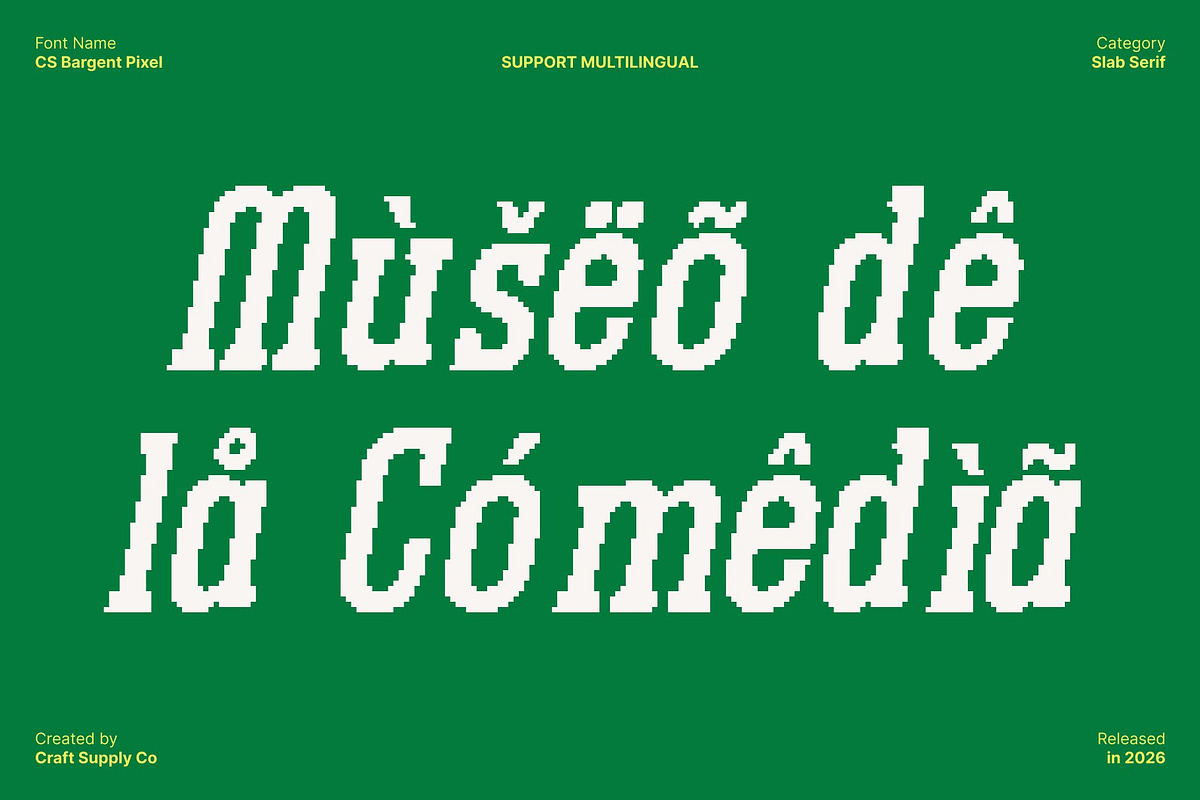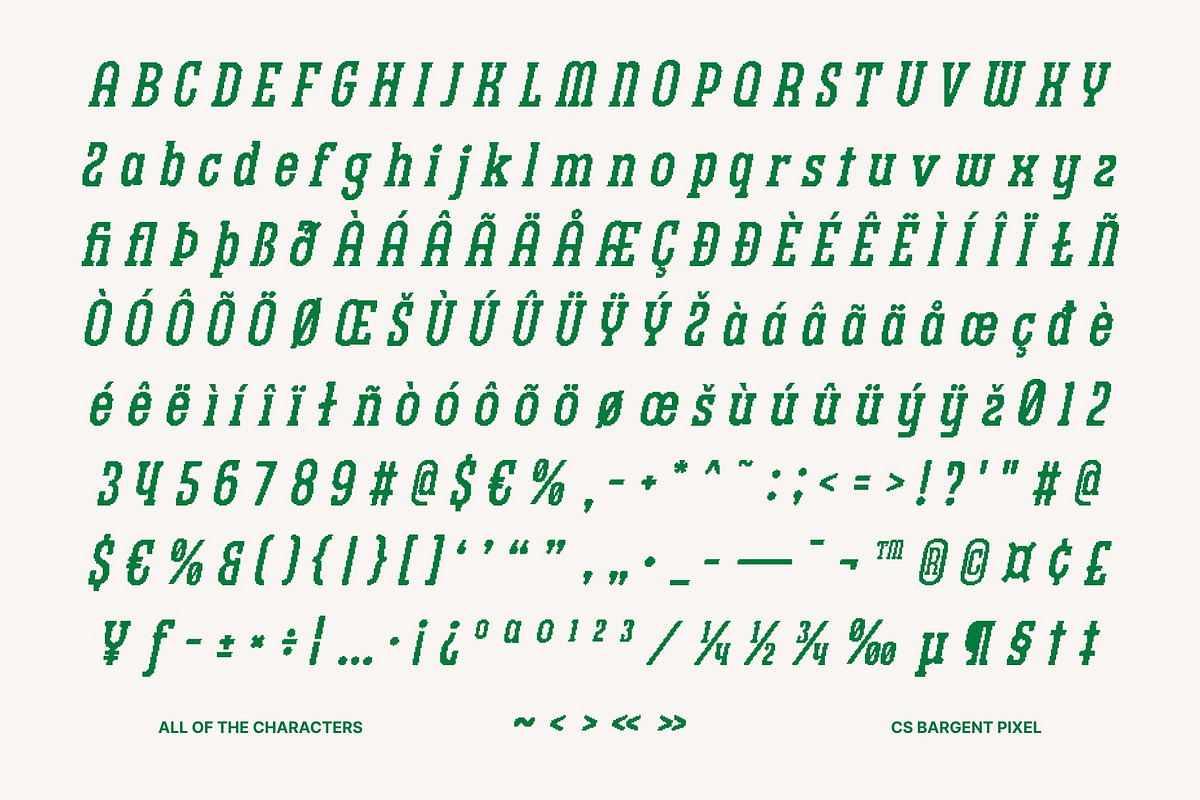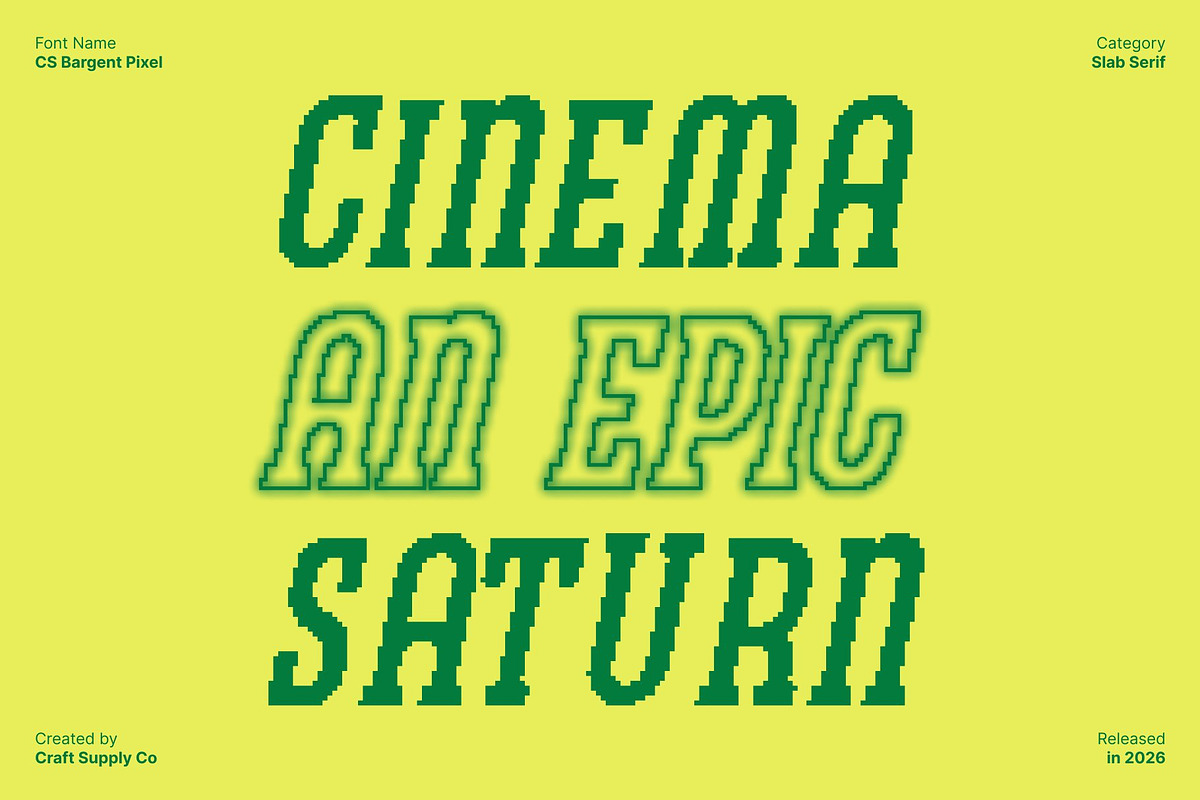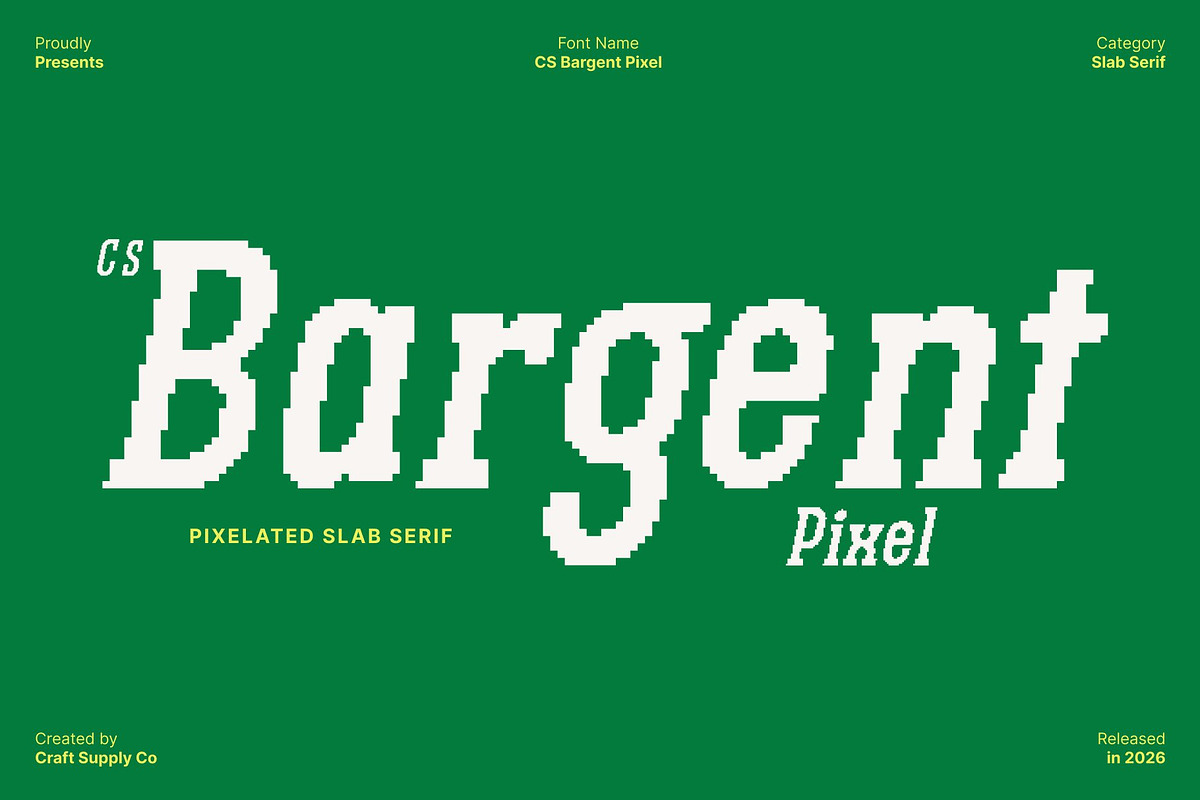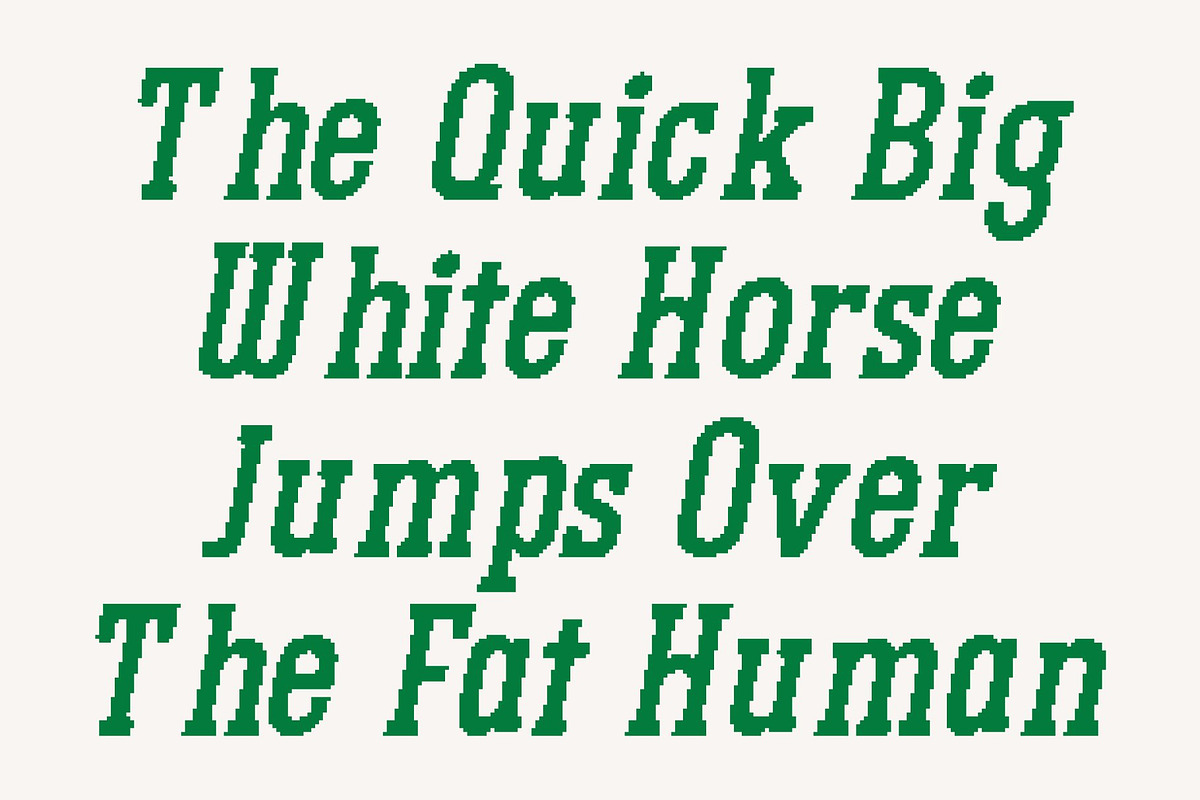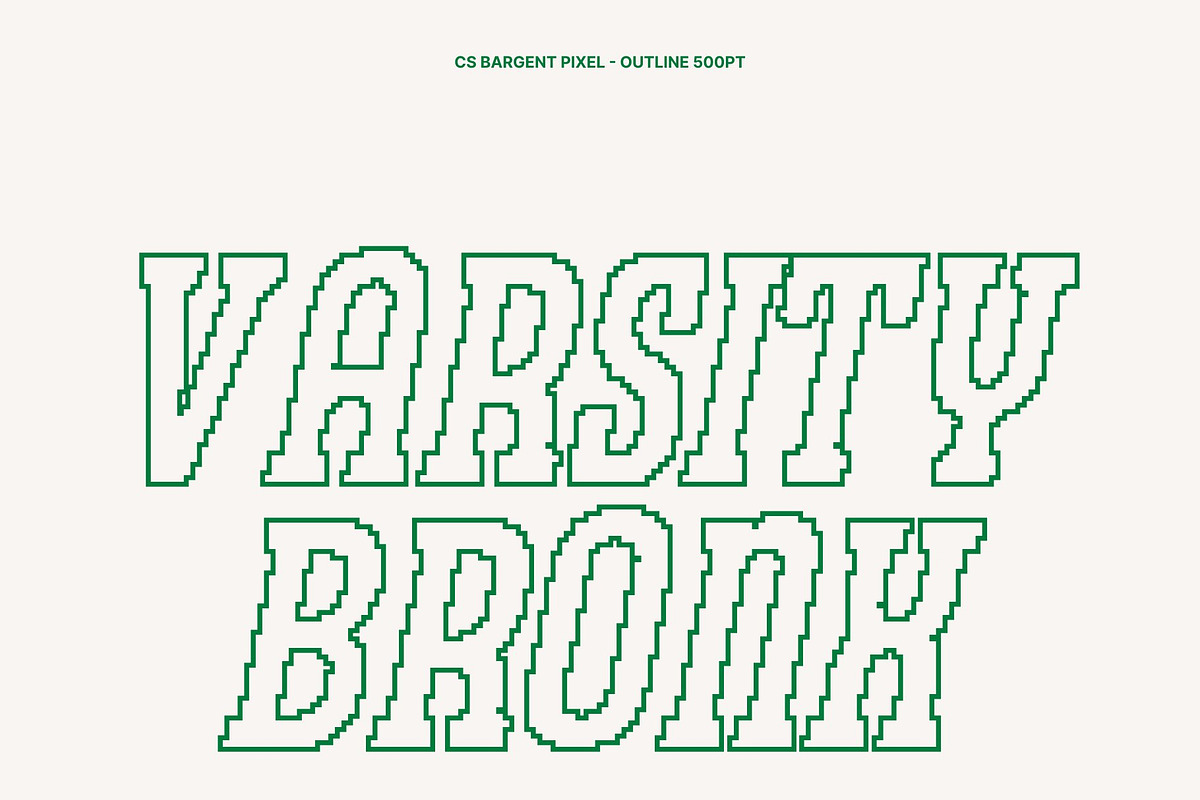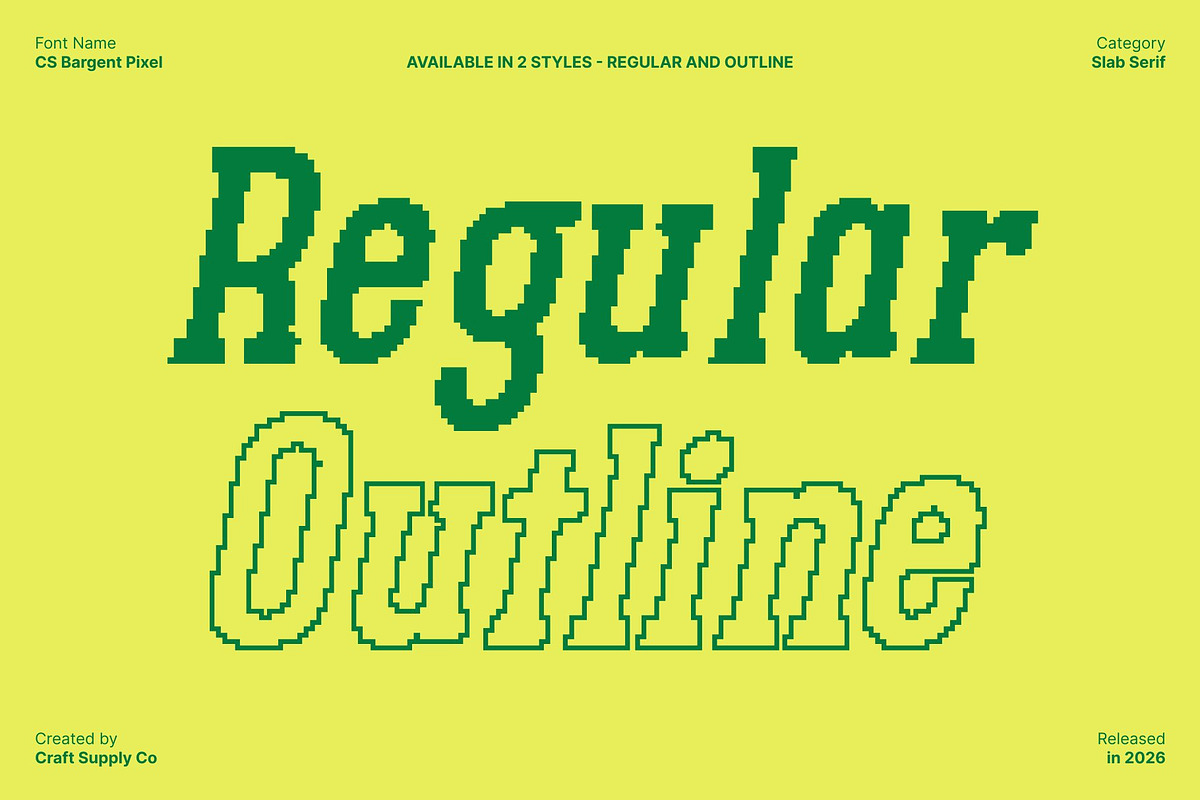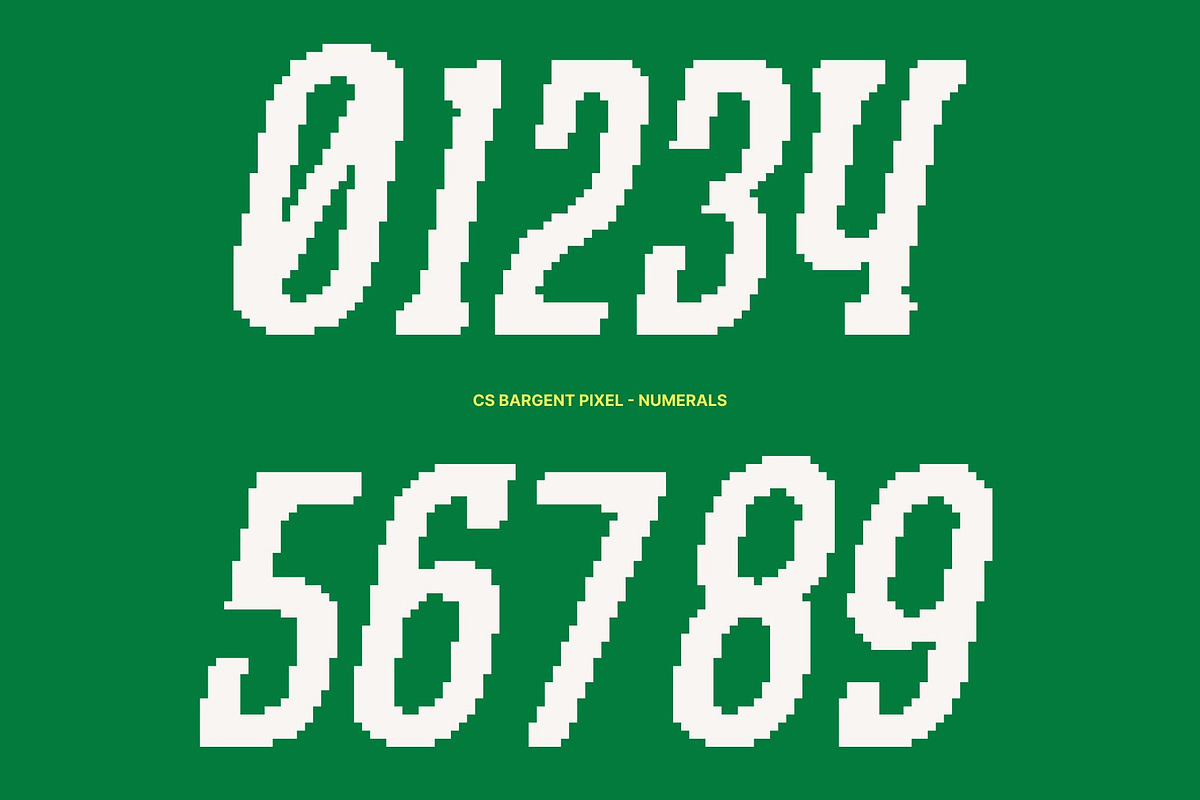
CS Bargent Pixel
CS Bargent Pixel – Modern Slab Serif Font: Bold, Sporty, and Assertive in Digital Retro Style
Soft Strength with Pixel-Driven Slab Serif Character This is a modern slab serif font that blends soft curves with bold, assertive construction, enhanced by distinctive pixel detailing. Inspired by sporty and campus-style typography, it delivers a confident and energetic presence while the pixel elements introduce a subtle old-digital flavor. This combination creates a font that feels strong yet approachable, balancing modern clarity with retro digital charm.
High-Impact Readability for Headlines and Displays Built for visibility and impact, performs exceptionally well in headlines, posters, advertisements, and billboards. Its sturdy slab serifs and clear pixel-influenced forms ensure excellent readability even from a distance. The pixel style adds visual texture, making the font feel dynamic and eye-catching across both print and digital media.
Sporty Energy with Retro Digital Appeal The sporty inspiration gives this font a dynamic, competitive vibe, while the pixel style brings an 8-bit, retro-digital atmosphere. This fusion creates a unique visual identity that feels bold, playful, and nostalgic at the same time.
Versatile for Branding, Sports, and Pixel-Inspired Design This font adapts easily to logos, branding, packaging, editorial layouts, and promotional graphics. Its modern slab serif base, combined with assertive weight and retro pixel accents, makes it ideal for sports branding, campus visuals, lifestyle projects, and digital or pixel-art-inspired designs that aim to stand out and leave a lasting impression.
- CS Bargent Pixel Regular
- CS Bargent Pixel Outline